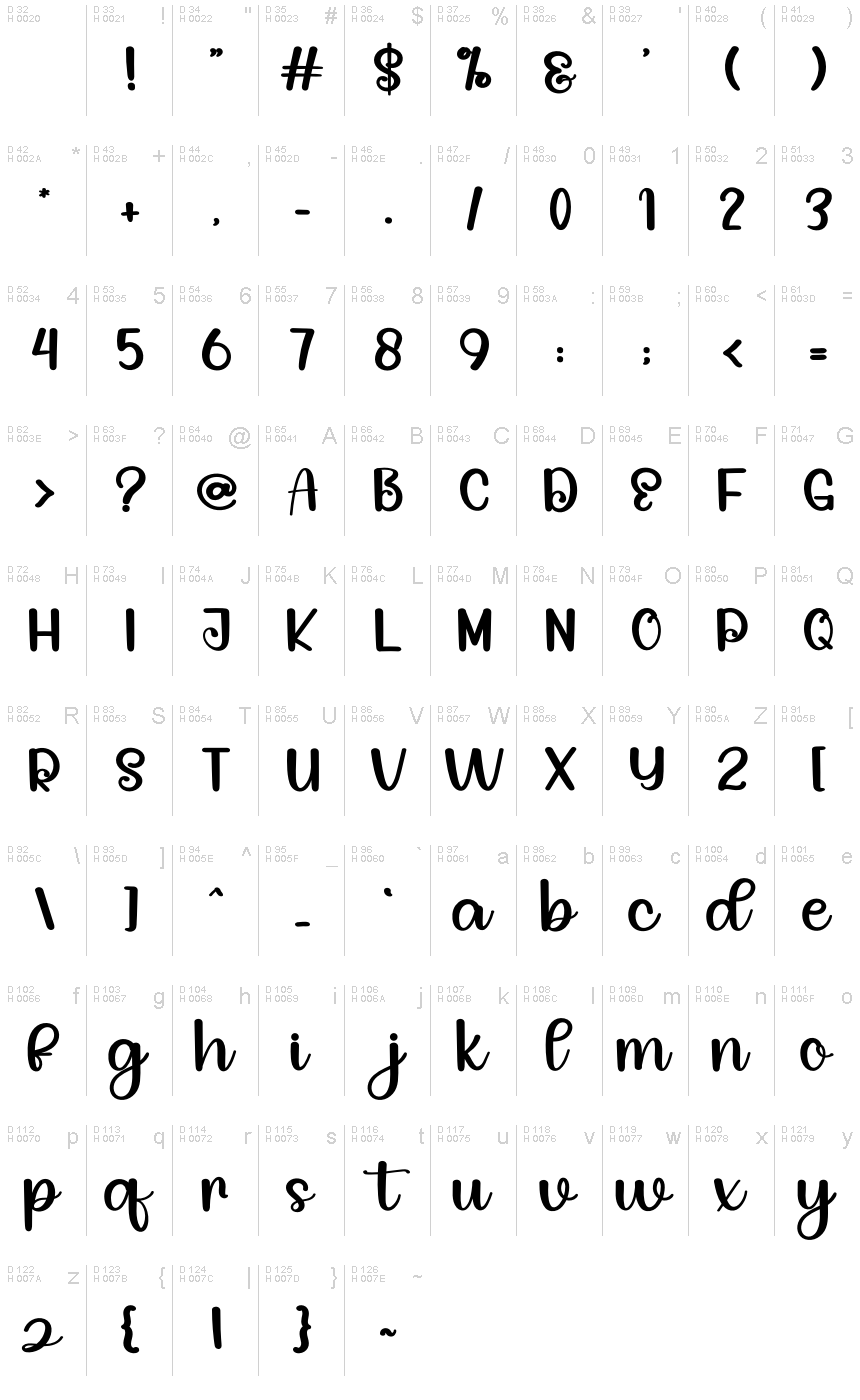
Trick
Trick is a captivating handwritten font that exudes a playful and whimsical charm. Created by Inermedia Studio, this font boasts a distinctive style that blends organic fluidity with a touch of playfulness. The flowing, script-like strokes give the letters a sense of movement and energy, making it an ideal choice for projects that require a casual, informal aesthetic.
From logos and branding to editorial design and packaging, Trick's versatility allows it to seamlessly integrate into a wide range of creative applications, adding a touch of personality and character to any project.